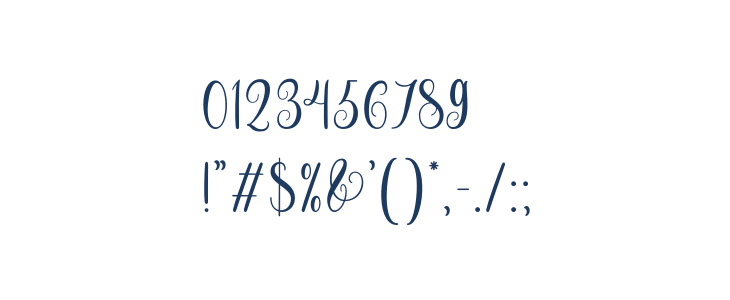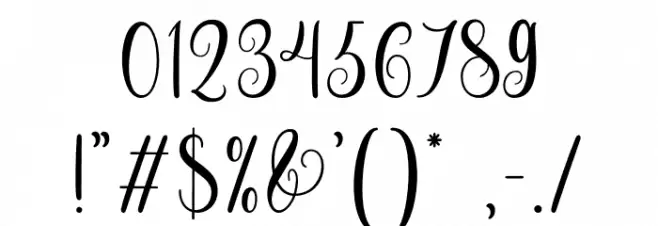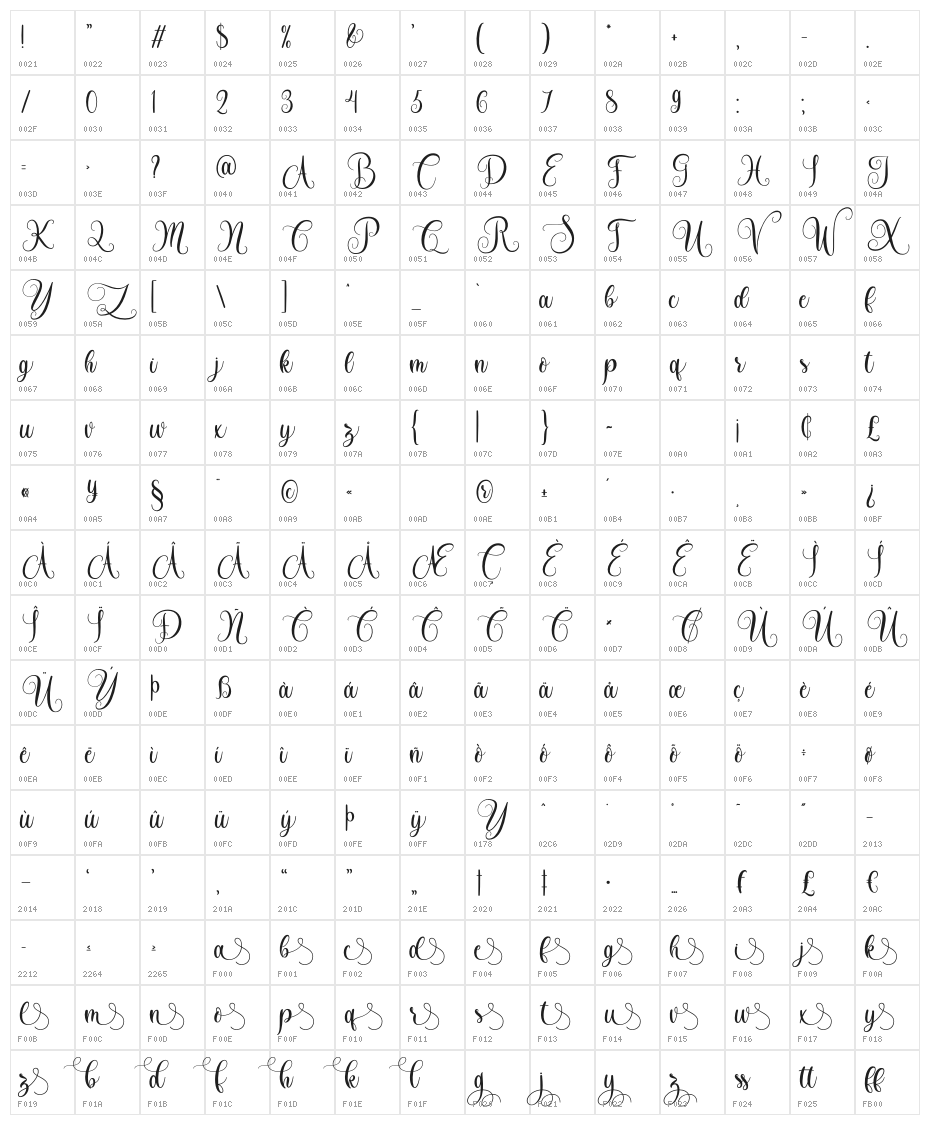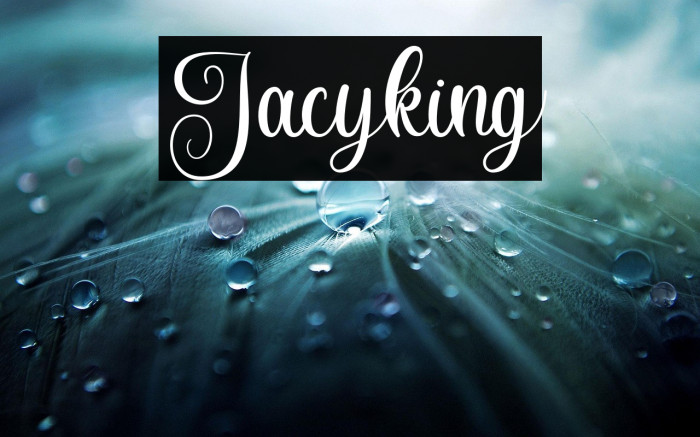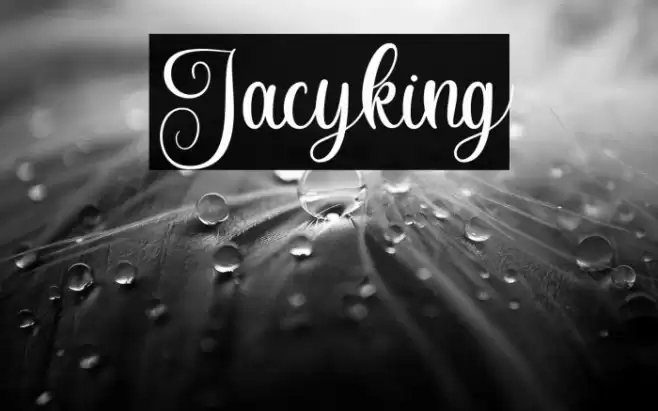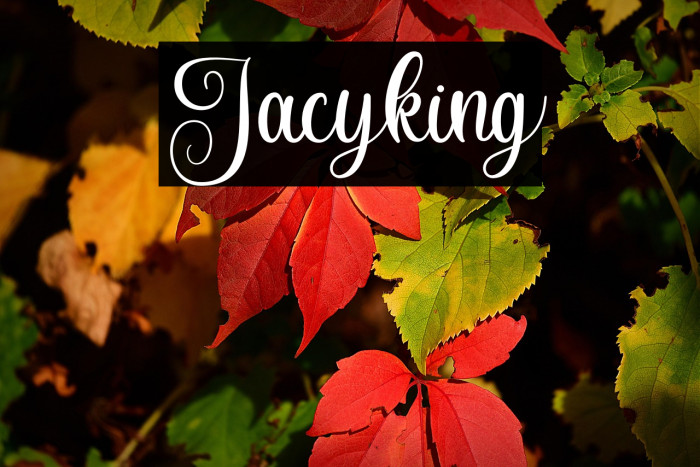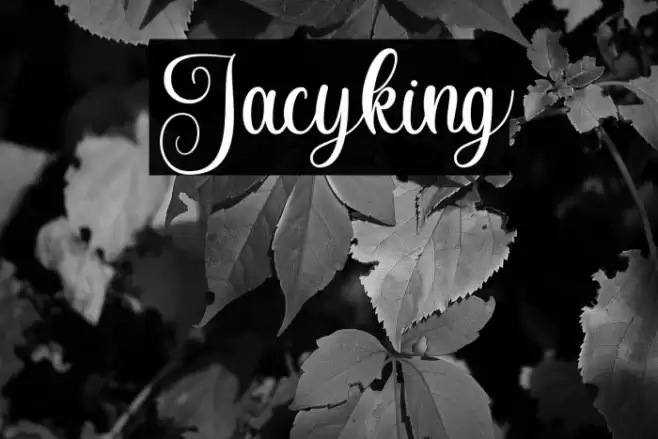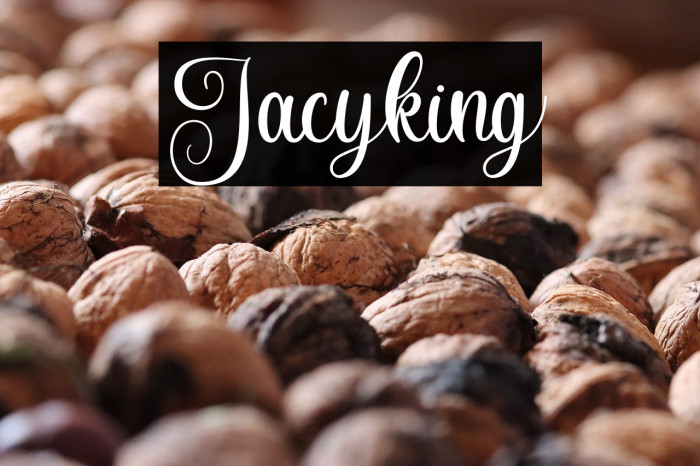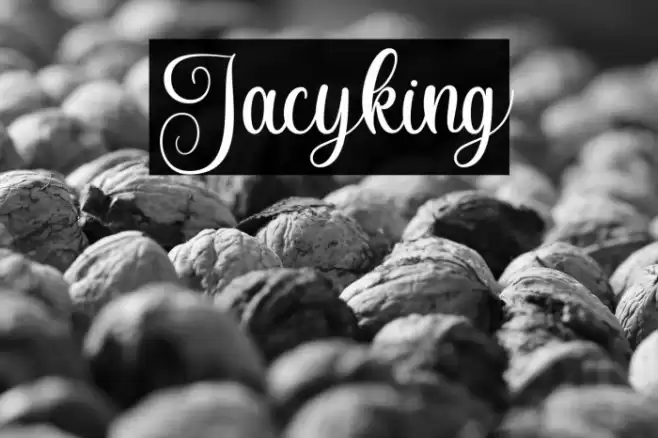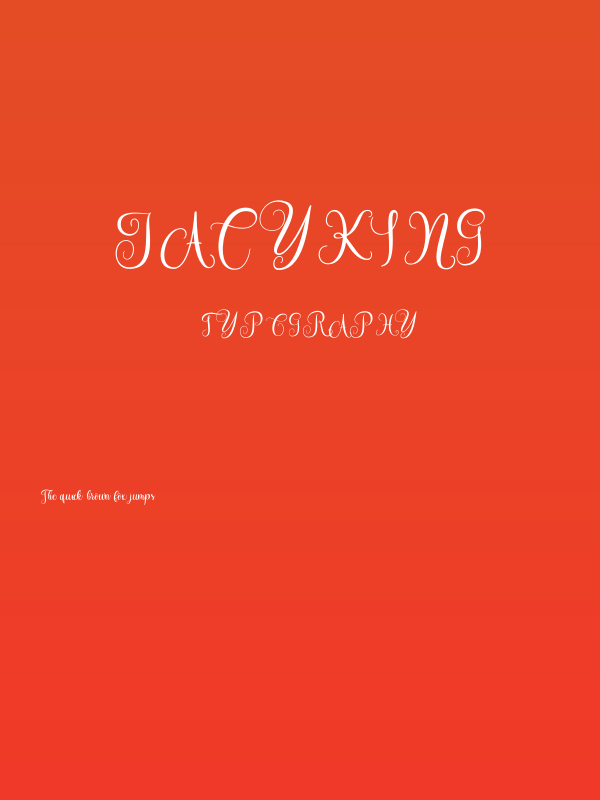
Jacyking Font
Jacyking Description
This font features a decorative and elegant script style, characterized by its flowing and interconnected letterforms. The uppercase letters exhibit intricate loops and swirls, adding a sense of sophistication and flair. The lowercase letters maintain a consistent cursive style, with smooth transitions and rounded edges. The numerals are designed to complement the script style, featuring slight curves and a balanced appearance. Special characters are integrated seamlessly, maintaining the overall aesthetic. This font is ideal for projects that require a touch of elegance and creativity.
Use CaseLogos, Invitations, Decorative text
Proposed ProjectsWedding invitations, greeting cards, branding, and logo design.